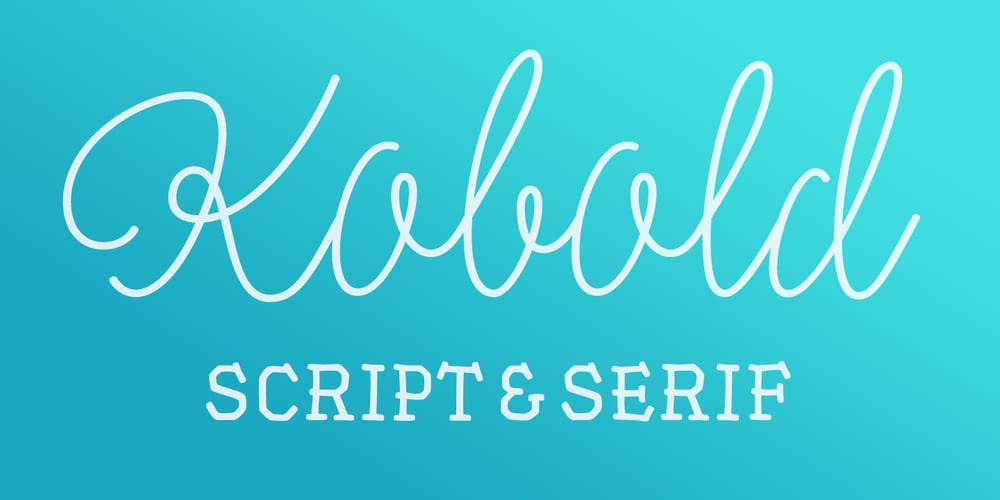
Kobold Font Family was designed by published by Luxus. Kobold contains 12 styles and family package options. Kobold is a font system consisting of a hand drawn serif and a connecting script. The all caps serif combines a handmade look and angled, modern looking letter forms. It also contains rough styles with a printed vintage look. Kobold Script is warm and friendly and has an expressive charm. Use Kobold for logotypes, magazine headlines, packaging, invitations, clothing, labels, greeting cards, posters, ads and the various web usages.